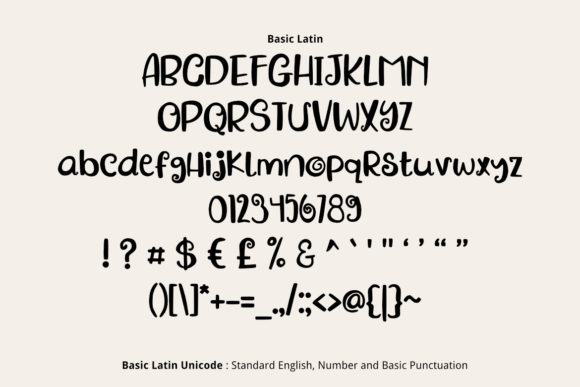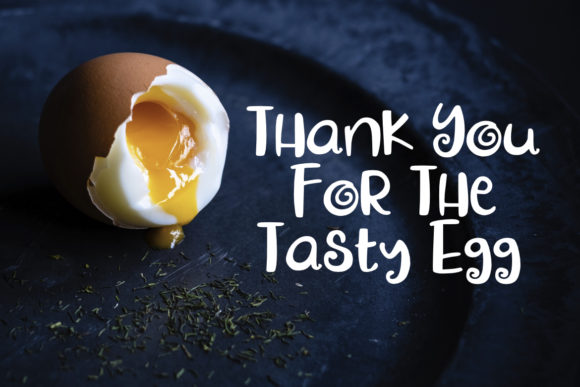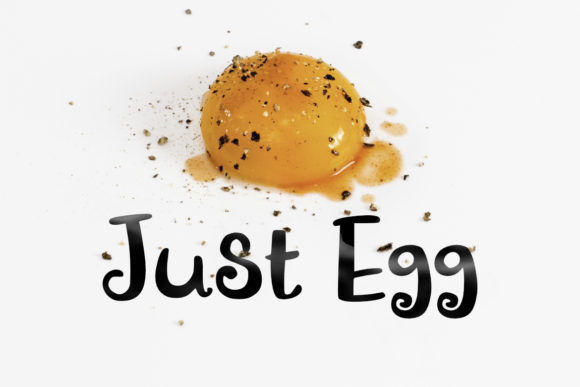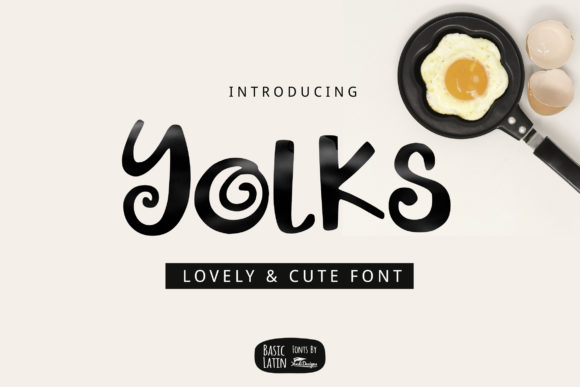
Yolks Font
About Yolks Font
Yolks is a delicate and whimsical handwritten font. Unique and interesting, this font will become your top choice in no time.